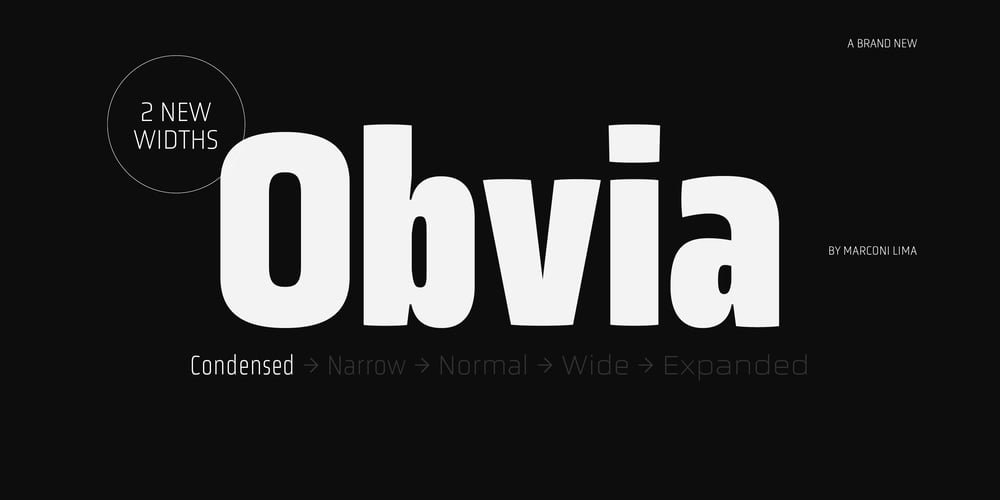
Obvia Condensed Font Family was designed by Marconi Lima and published by Typefolio. Obvia Condensed contains 9 styles and family package options. ‘Obvia’ appeared as a result of direct observation on typefaces classified as geometric and the plan to explore for the first time width axes Expanded, Wide, Normal, Narrow and Condensed The idea behind ‘Obvia’s design was to create a distancing from geometrically pure shapes, in this case, square shapes. Then some details were added, such as subtle inktraps, concave endings of the stems and carefully drawn alternate characters, giving a ‘geohumanist’ tone to the font. This first family of ‘Obvia’ has 9 weights ranging from Thin to Black, delivering a strong typographic identity, from the paper to the pixel.